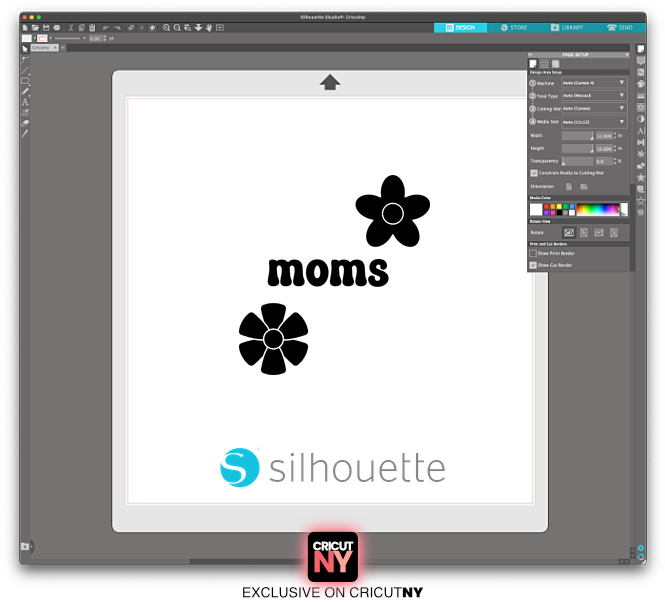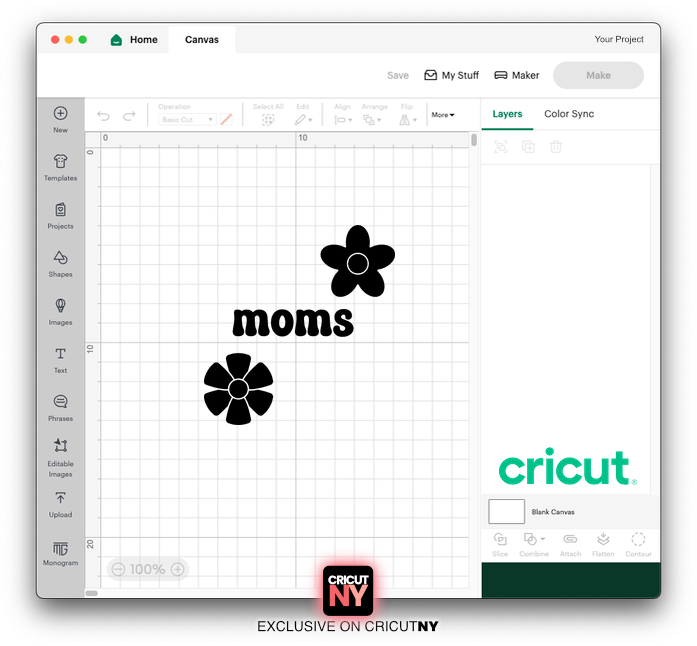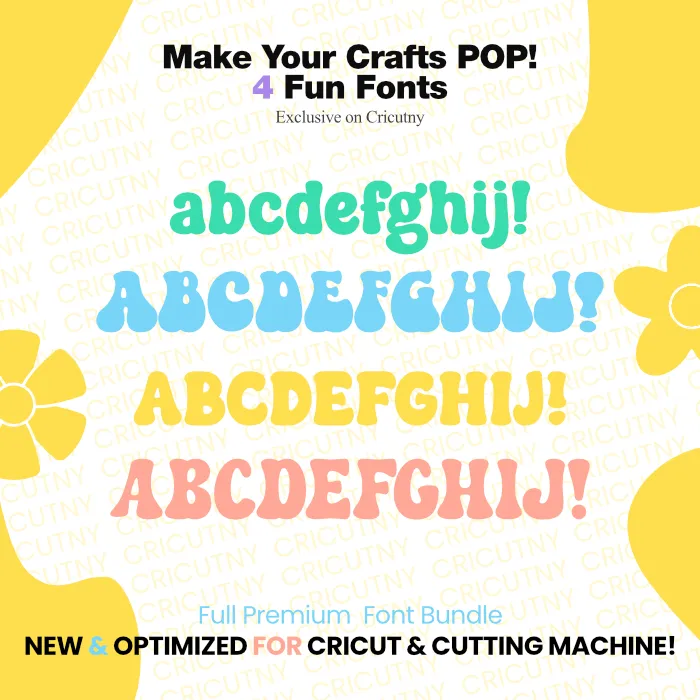
💖 Hey, Cool Moms! Ready to Design Like a Queen? 💖
Meet the Cool Moms Club Retro Font Bundle—your secret weapon for creating stylish, playful, and oh-so-fabulous designs from scratch!
Whether you’re making trendy T-shirts, sassy tote bags, or cute party invites, these 4 premium retro fonts will add that perfect bubbly, groovy, and effortlessly cool touch. And guess what? You’re also getting 2 gorgeous flowers to sprinkle extra charm into your designs!
Because let’s be real—moms do it all. And now, you can design it all too! 😉✨